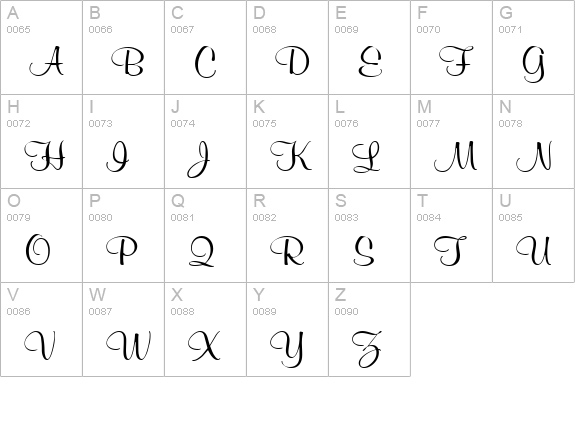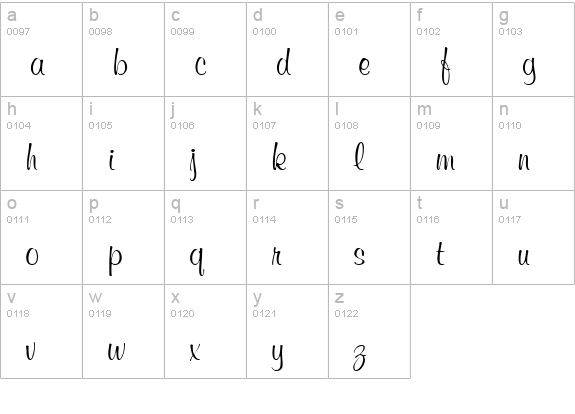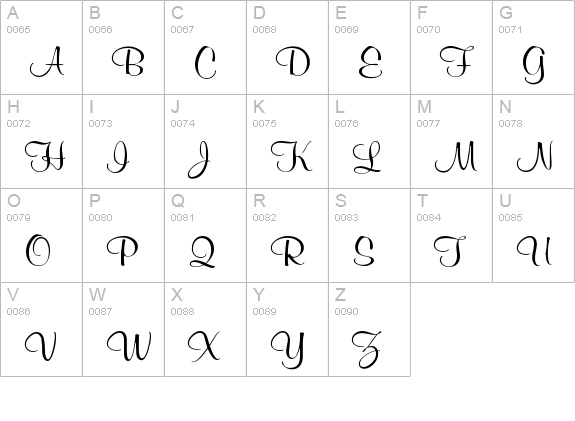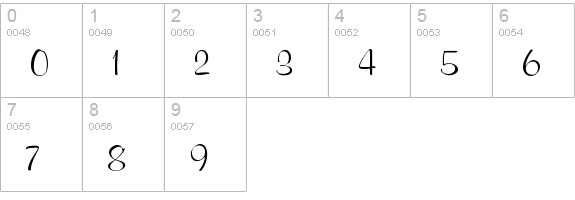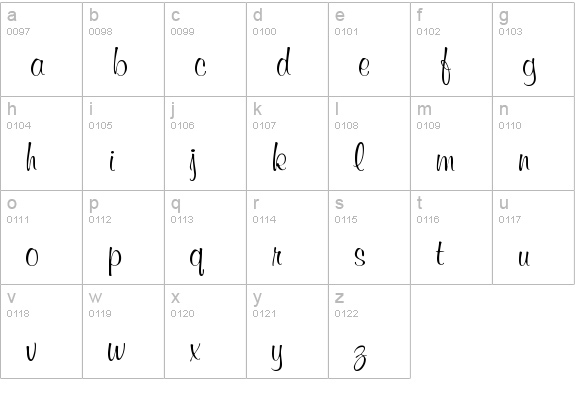
Murray Bold Font Details
Murray Bold is a strong, high-contrast variant in the Murray typeface family \xE2\x80\x94 well suited to headlines, attention-grabbing titles, and strong calls-to-action.
Murray Bold font is a versatile and eye-catching typeface that exudes strength and modernity. Its bold and assertive appearance makes it perfect for headlines, titles, and branding projects. The sturdy letterforms and clean lines of Murray Bold give it a confident and dynamic presence on any design. This striking font is ideal for creating impactful designs that demand attention and make a statement. Whether used in print or digital media, Murray Bold adds a touch of sophistication and style to any project. Best of all, Murray Bold font is available for free download at FontsMarket.com, making it easily accessible for designers and creatives looking to elevate their work with a bold and impactful typeface. Don't miss out on the opportunity to add this stunning font to your collection today!